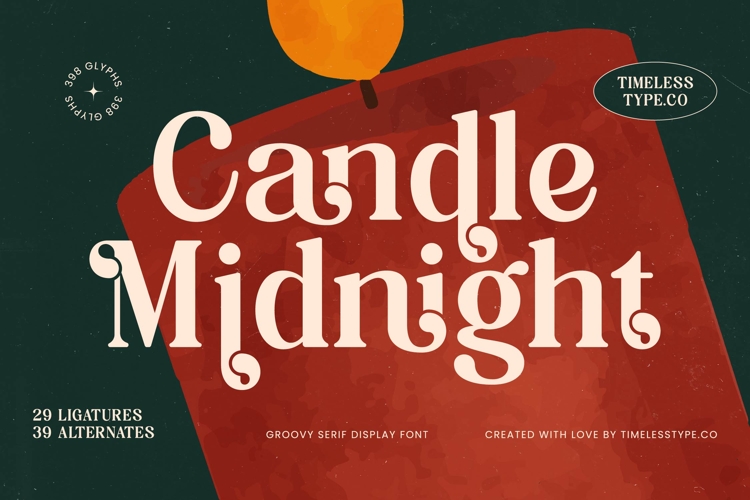
Candle Midnight - Groovy Serif Display Font
Unleash a wave of nostalgic charm with Candle Midnight - Groovy Serif Display Font, a truly distinctive typeface designed to make an unforgettable impression. Its unique blend of classic serif elegance and playful, flowing curves creates a visual harmony that is both sophisticated and inviting. This captivating display font instantly elevates any design, imbuing it with a delightful retro-inspired aesthetic beautifully fused with modern charm.
Experience unparalleled design flexibility with Candle Midnight - Groovy Serif Display Font, boasting a rich character set that includes numerous stylistic alternates and ligatures. These extensive options provide immense creative freedom, allowing designers to craft bespoke headlines and logos with ease. The thoughtful inclusion of 29 ligatures and 39 alternates ensures your typography achieves a level of typographic depth and a perfectly polished aesthetic, setting your projects apart.
Expand your creative horizons and reach a wider audience with Candle Midnight - Groovy Serif Display Font's exceptional global adaptability. With its extensive multilingual support, Candle Midnight - Groovy Serif Display Font adapts seamlessly across global markets, making it incredibly versatile for international projects. This comprehensive language coverage ensures your message resonates clearly and stylishly, no matter the linguistic requirement.